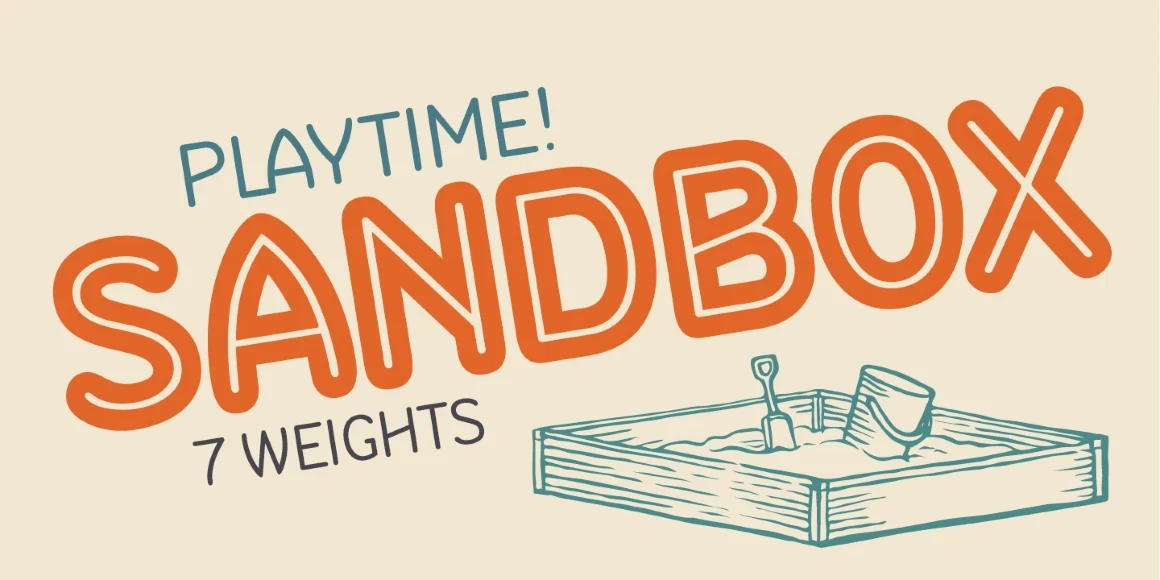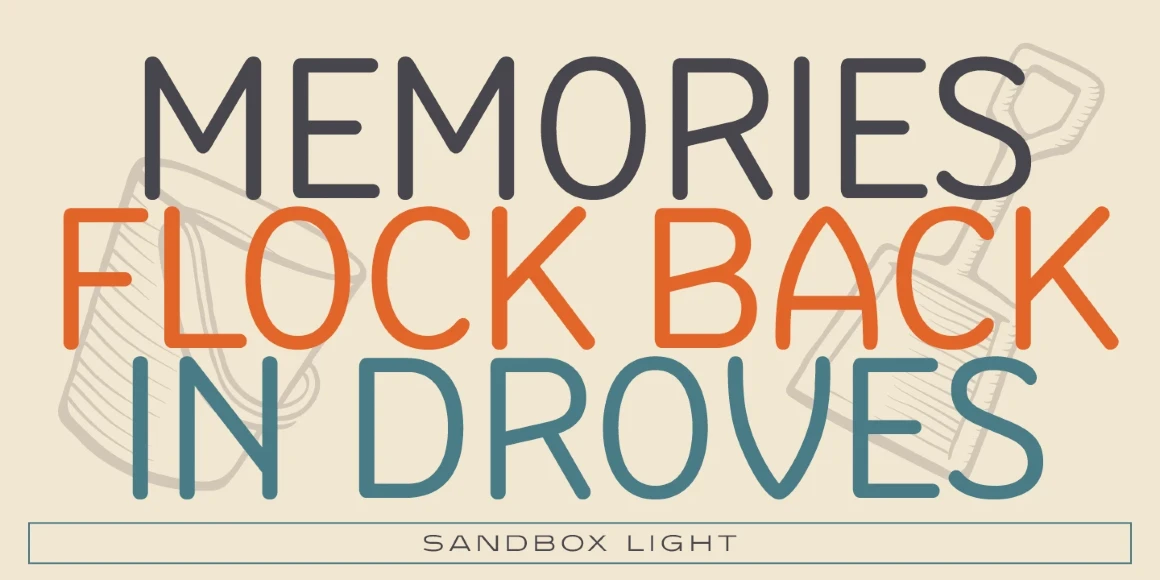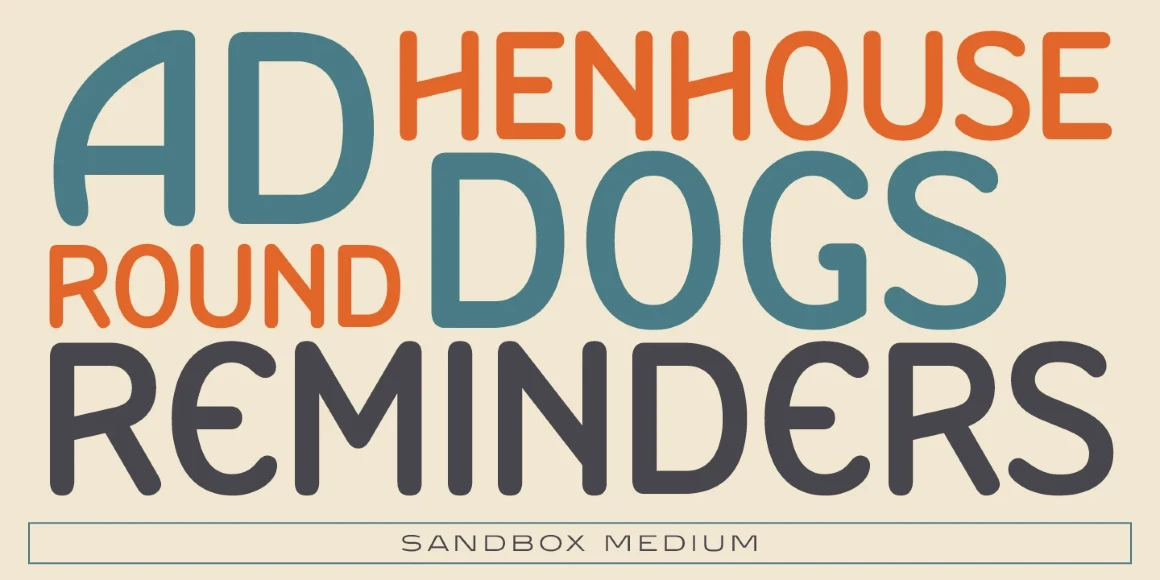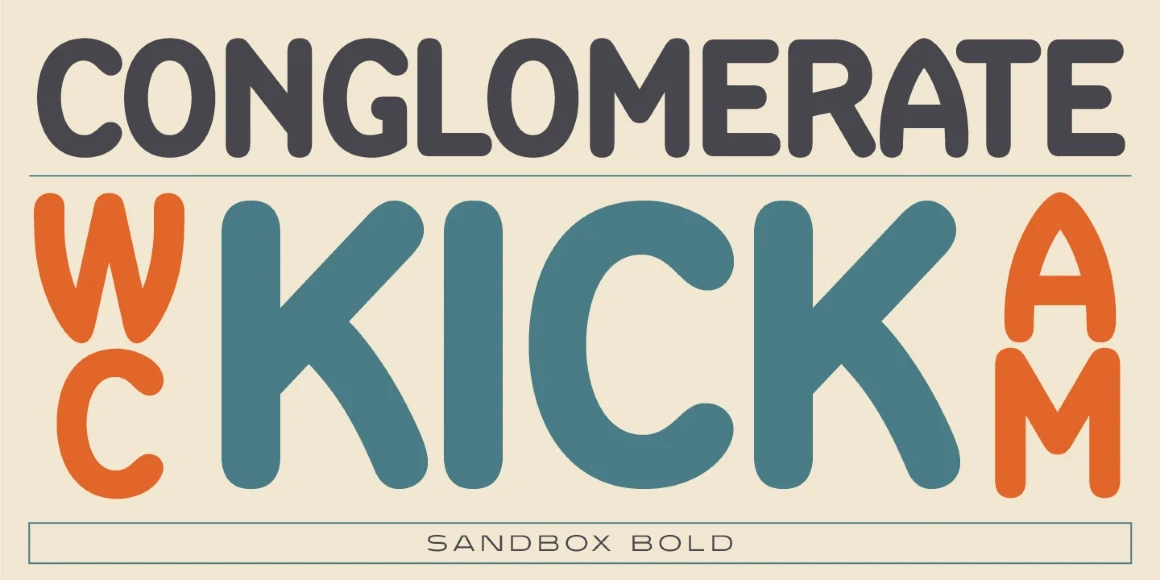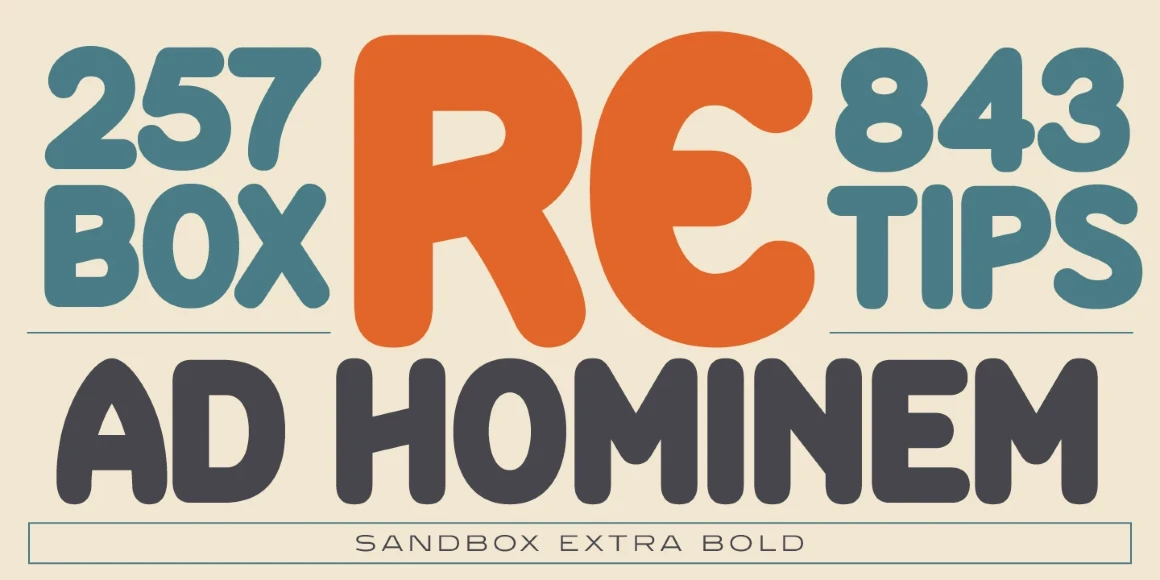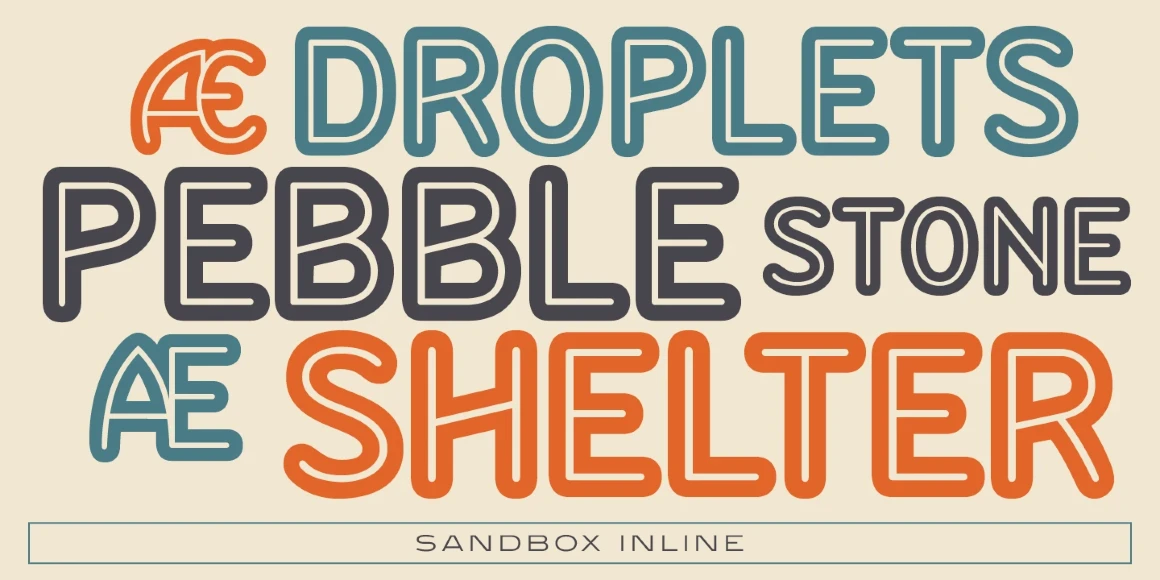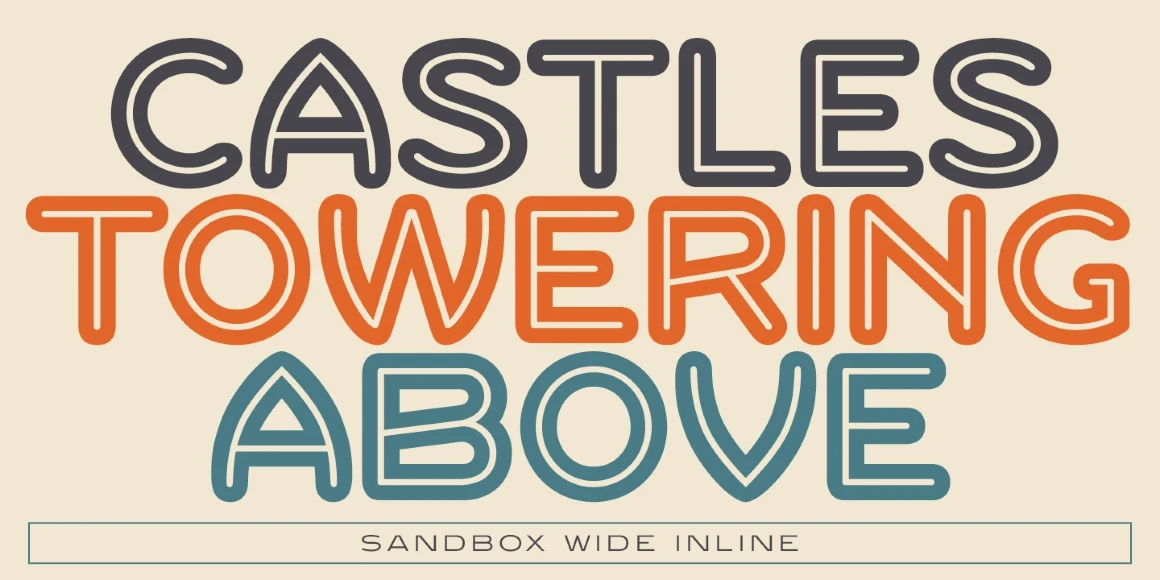
Sandbox
Sandbox was inspired by designs created by the Robert D. DeLittle Foundry in York, England, sometime after 1888. At the time, the fonts were simply grouped under the title #260 in the DeLittle catalog. This new font family was completely redrawn and produced by Steve Jackaman (ITF) in 2017, and several additional weights were designed. Sandbox was given its new name because it showcases a playful and bold feel, and contains many fun alternate characters and ligatures. It excels in display, but can still lend a carefree feel to subhead and text sizes.